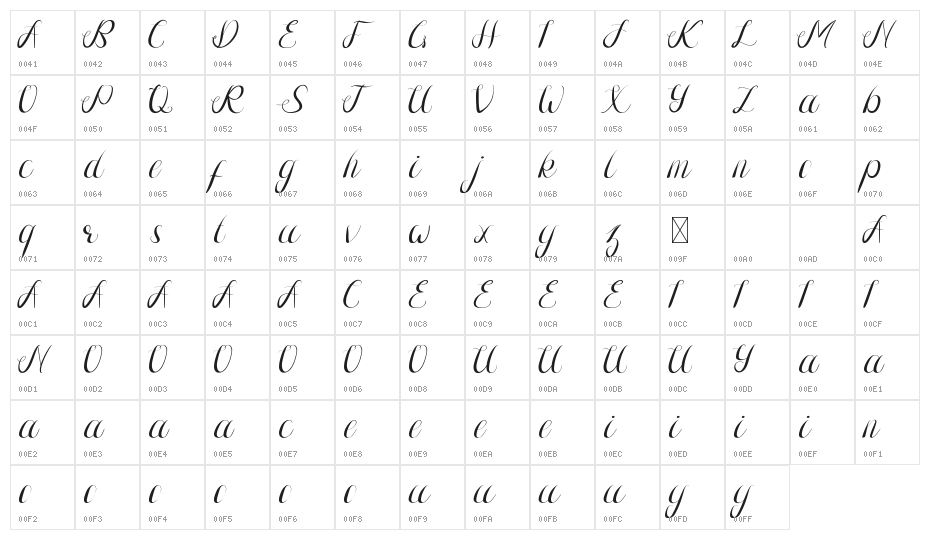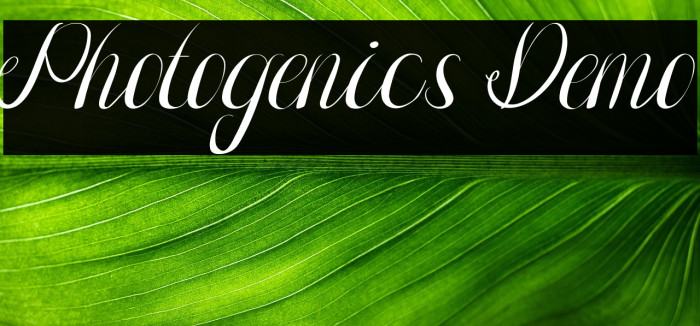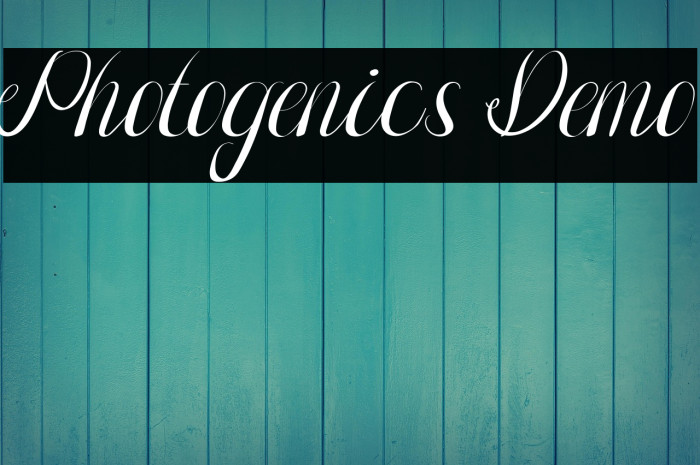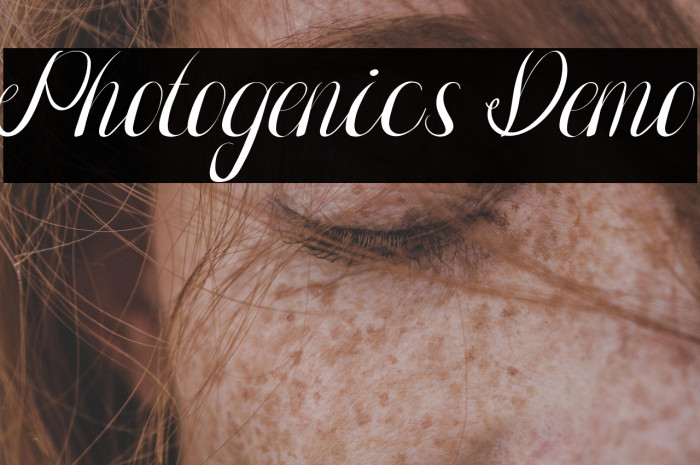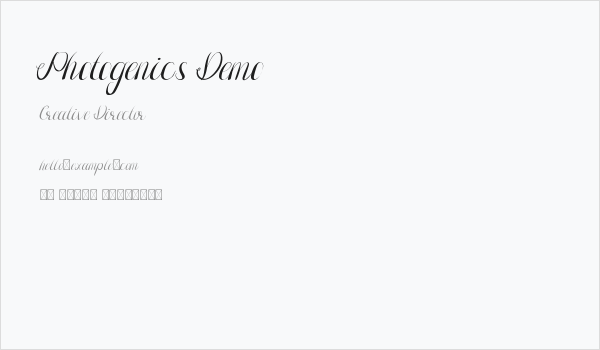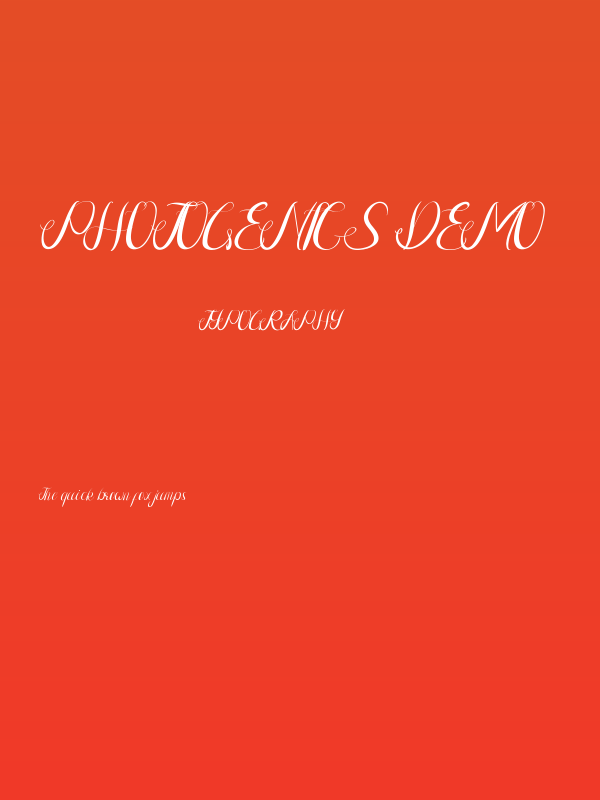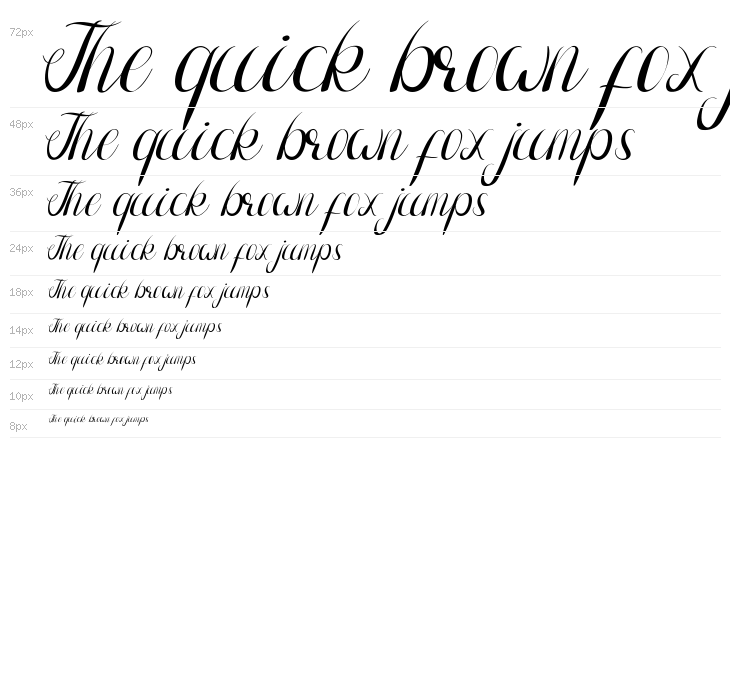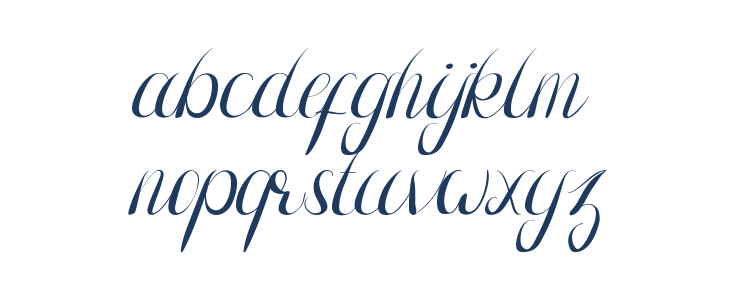
Photogenics Demo Font
Photogenics Demo Description
This elegant script font features a sophisticated and flowing design, characterized by its intricate swashes and flourishes. The letters are interconnected with graceful curves, giving it a sense of fluidity and movement. The uppercase letters are particularly ornate, with extended strokes that add a decorative touch. The lowercase letters maintain a consistent style, complementing the uppercase with their own subtle embellishments. The overall appearance is both stylish and refined, making it suitable for formal invitations, branding, and other projects that require a touch of elegance.
| Use Case | Headlines, Invitations, Branding |
| Proposed Projects | Ideal for wedding invitations, luxury branding, elegant stationery, and decorative headlines. |